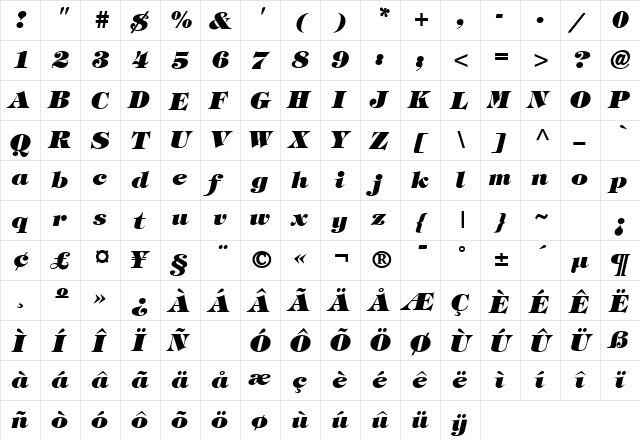
Sophisticate Black SSi Extra Bold Italic
| Style | Extra Bold Italic |
Design Context for Sophisticate Black SSi Typeface
Sophisticate Black SSi is a composed and adaptable typeface that performs quietly and consistently across a wide range of design contexts. The slanted form adds forward momentum and visual energy. The heavy weight commands attention and anchors typographic hierarchies.
Pro Tip: Use Sophisticate Black SSi for emphasis, pull quotes, and subheadings where its slanted energy can add rhythm to the layout.